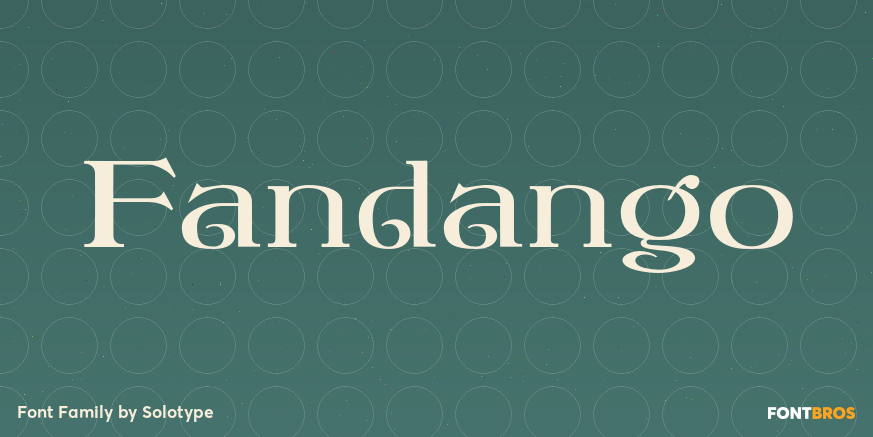
HomeFont BrosHistoricalFandango HistoricalSpecial Effect Fandango FacebookXPinterestWhatsApp 1 of 1 About Fandango Curlicues galore on this modern version of a mid-victorian display type. We started with the caps from a type called Cellini, altered them considerably, and added a lowercase.  DOWNLOAD NOW People also explored Warm and Love Font Qoumaria Revina Monogram Font Rusttonalt Font Balkous Font Cutting-Ends Font Magna Light Font Hopery Font Loveframe Font 211 0 TagsFandango Font Previous articleBupkisNext articleSpiraling Down LEAVE A REPLY Cancel reply Comment: Please enter your comment! Name:* Please enter your name here Email:* You have entered an incorrect email address! Please enter your email address here Website: Save my name, email, and website in this browser for the next time I comment. Personal Use Free Concre Personal Use Free Read more about this font Castina Personal Use Free Read more about this font Konexio Personal Use Free Read more about this font Black Personal Use Free Read more about this font BLOG 5 Fonts That Will Dominate Design Trends in 2026 5 Fonts for 2026 That Will Dominate Design Trends Typography plays a critical role in visual communication, and as we look ahead to 2026, it’s... How to Install and Use Fonts on Windows, macOS, and Web Projects Elegant Wedding Invitation Fonts – Handwritten & Script Fonts Free Fonts Risk: Why Free Fonts Can Be Dangerous for Designers